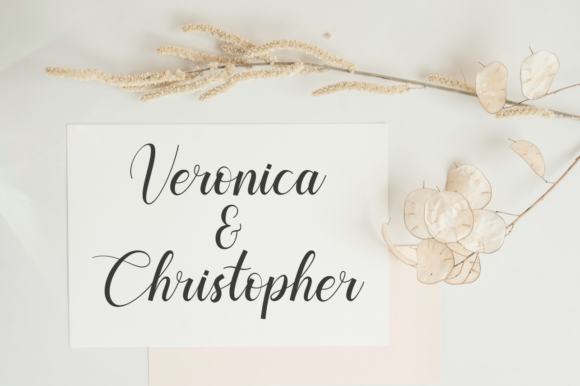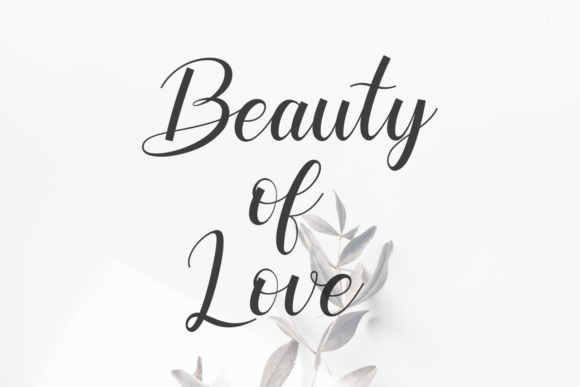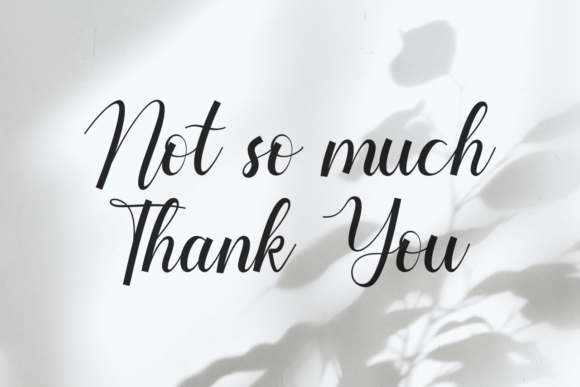
Benedicta Font
About Benedicta Font
Benedicta is a lovely and beautiful handwritten font. It is the best choice for creating eye catching wedding invitation, thank you card, logos, branding and quotes. Every letter has a unique and beautiful touch, which will make your design come alive!